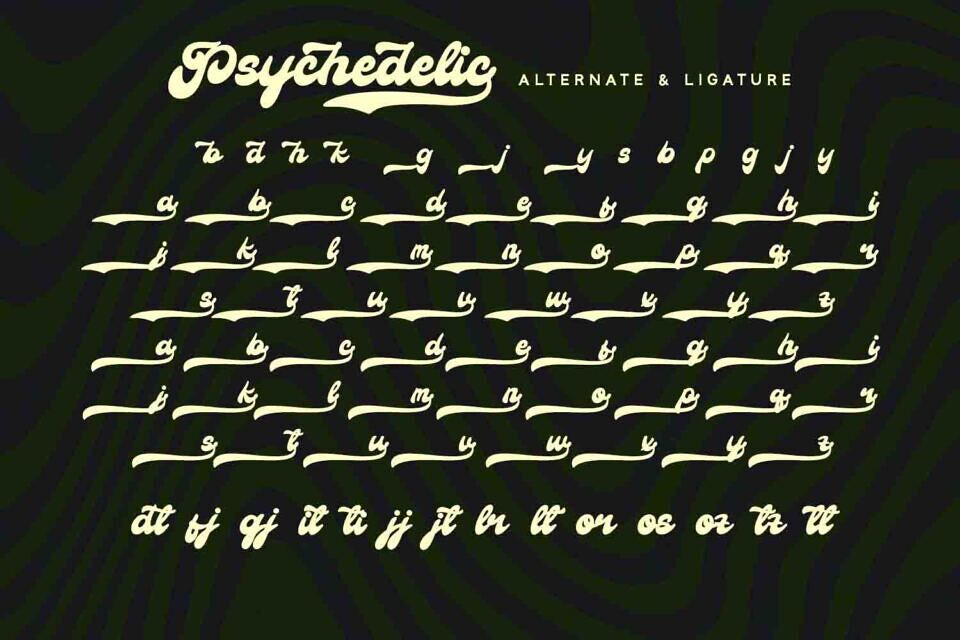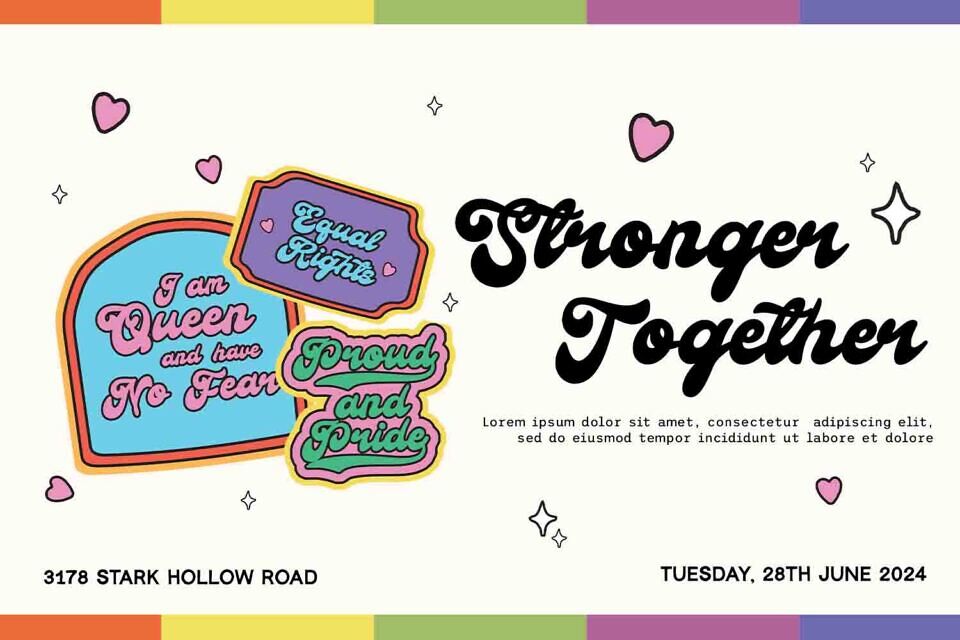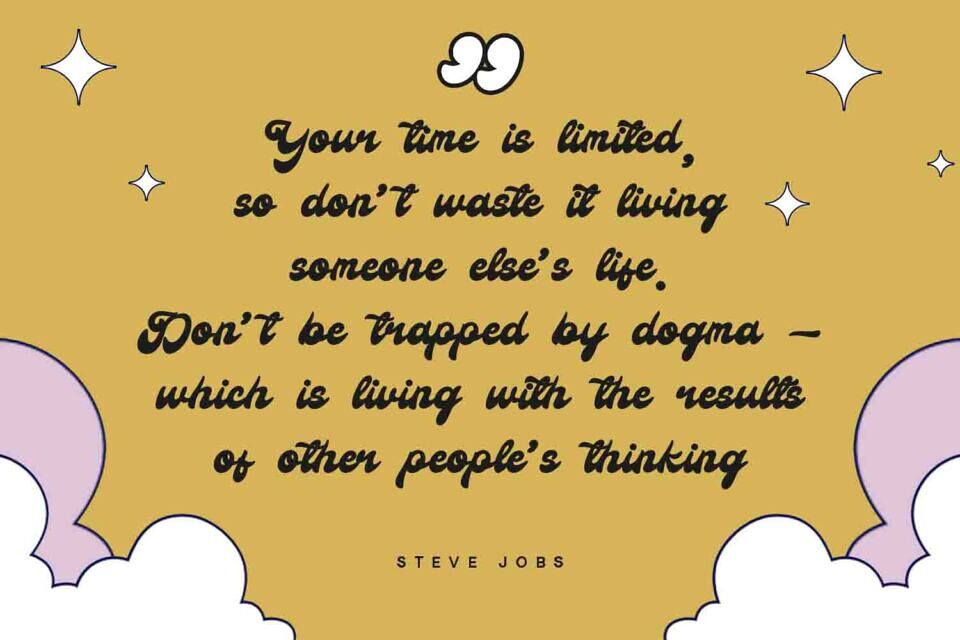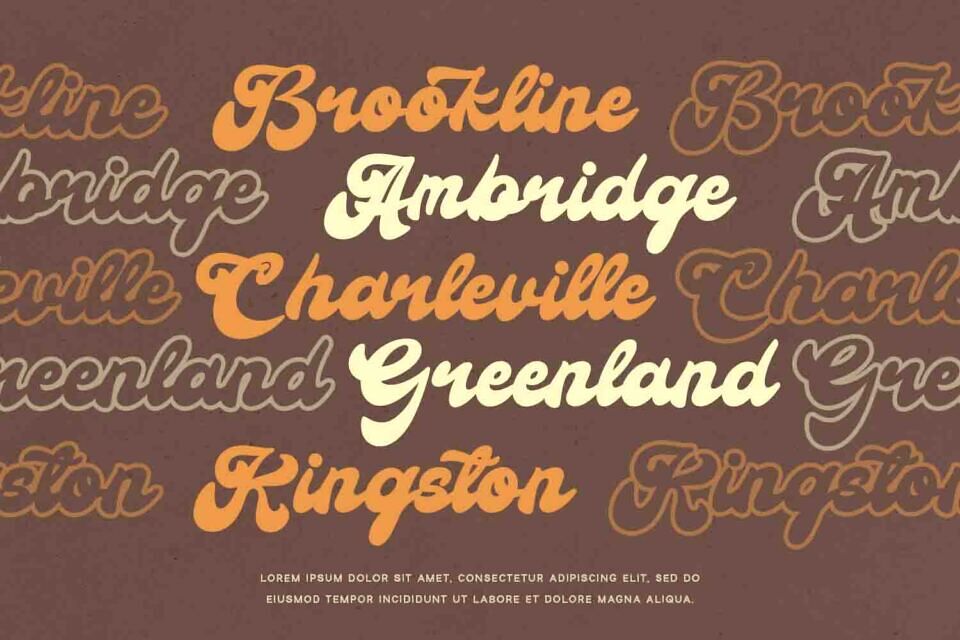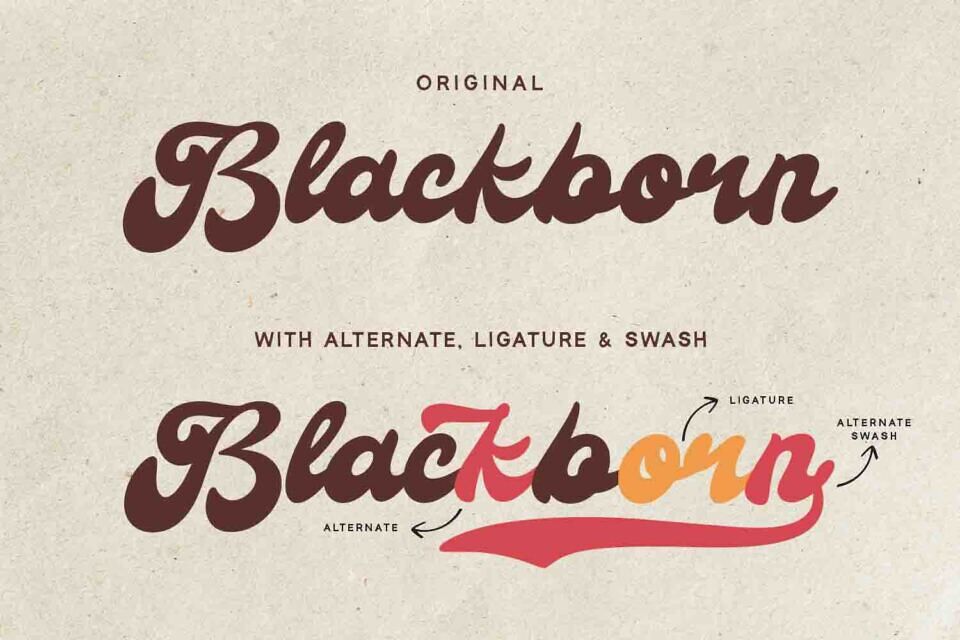
Psychedelic Font
Psychedelic is a groovy script font with authentic and classic feels. It will be perfectly used for Branding, Logo Design, Lettering, Logotype, Clothing, Poster, magazine, packaging, posters, shopping bags, t-shirts, book covers, photography, special events and other design project.